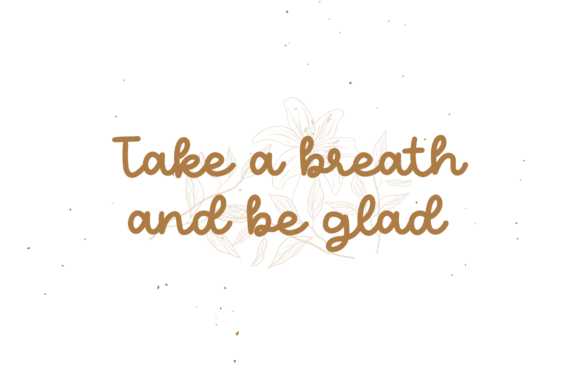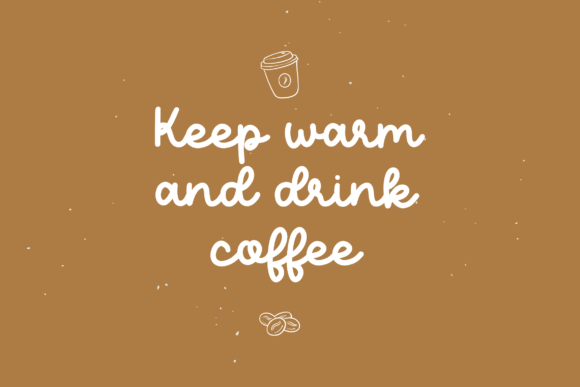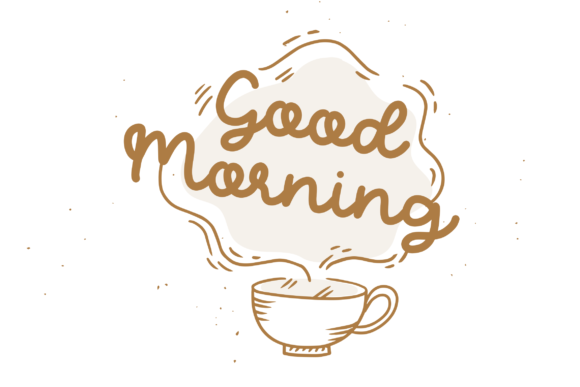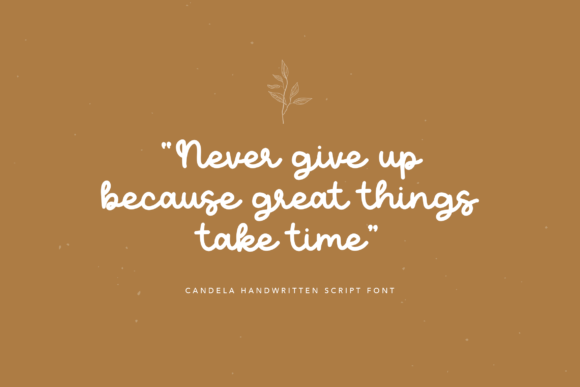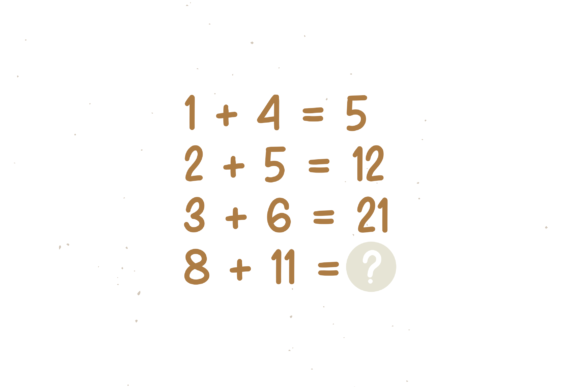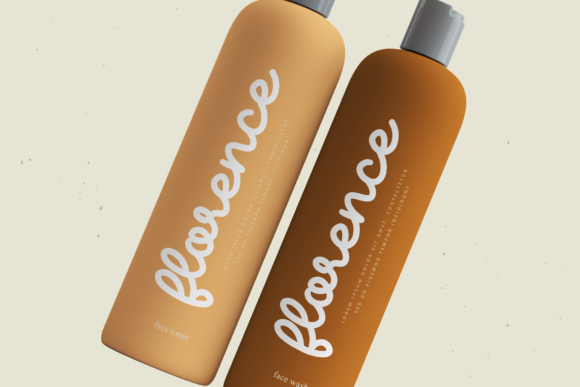
Candela Font: The Elegant and Charming Choice for Designers and Crafters
Are you looking for a font that exudes elegance and charm? Look no further than the Candela font. This beautiful handwritten font is perfect for adding a touch of sophistication to any design project. In this article, we’ll explore the features and benefits of the Candela font, and why it’s a popular choice among designers and crafters.
What is Candela Font?
Candela is a modern script font that feels equally charming and elegant. Its beautiful, flowing lines and intricate details make it perfect for a variety of design projects, from wedding invitations and greeting cards to logos and business cards. The font is highly versatile and can be used for both personal and commercial projects.
Features of Candela Font
The Candela font has several features that make it a popular choice among designers and crafters. Some of its key features include:
- Beautiful Handwritten Style: The Candela font has a beautiful, handwritten style that adds a touch of elegance and charm to any design project.
- Highly Versatile: The font is highly versatile and can be used for a variety of design projects, from wedding invitations and greeting cards to logos and business cards.
- Easy to Read: The Candela font is easy to read, making it perfect for designs that require a lot of text, such as quotes and thank you cards.
- Scalable: The font is highly scalable, making it perfect for designs that require a large font size, such as posters and banners.
Uses of Candela Font
The Candela font is perfect for a variety of design projects, including:
- Wedding Invitations: The Candela font is perfect for wedding invitations, adding a touch of elegance and sophistication to your design.
- Thank You Cards: The font is also perfect for thank you cards, adding a personal touch to your design.
- Quotes: The Candela font is perfect for quotes, making it easy to add a touch of elegance and sophistication to your design.
- Greeting Cards: The font is also perfect for greeting cards, adding a personal touch to your design.
- Logos: The Candela font is perfect for logos, adding a touch of elegance and sophistication to your brand.
- Business Cards: The font is also perfect for business cards, making it easy to add a personal touch to your design.
Why Choose Candela Font?
There are many reasons why you should choose the Candela font for your design project. Some of the benefits of using this font include:
- Elegant and Charming: The Candela font is elegant and charming, making it perfect for designs that require a touch of sophistication.
- Highly Versatile: The font is highly versatile, making it perfect for a variety of design projects.
- Easy to Read: The Candela font is easy to read, making it perfect for designs that require a lot of text.
- Scalable: The font is highly scalable, making it perfect for designs that require a large font size.
In conclusion, the Candela font is a beautiful and elegant font that is perfect for designers and crafters. Its highly versatile and easy to read, making it perfect for a variety of design projects. Whether you’re looking to create a wedding invitation, thank you card, quote, greeting card, logo, or business card, the Candela font is a great choice. So why not give it a try and see how it can add a touch of elegance and sophistication to your design?